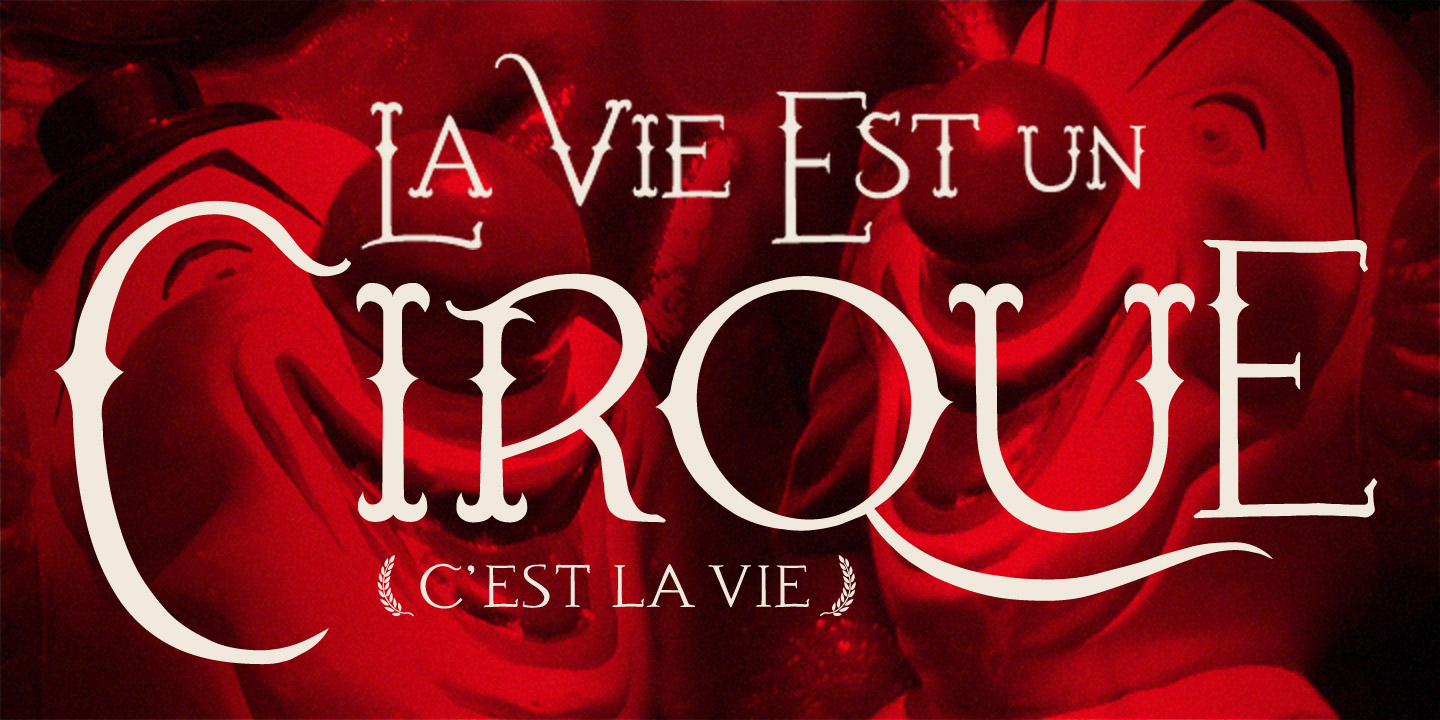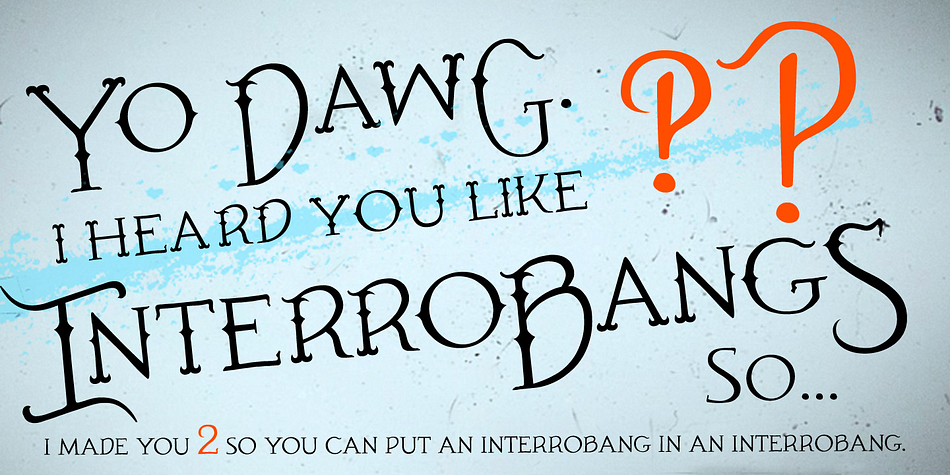
Cirque is a display and western font published by Frost Foundry.
Cirque is a lively Western/Circus/Victorian/Whatever font that buddies up with Aegean for a POWER FANTASY COMBO GOODTIME! You could buy Cirque alone for $25, but why do that when you can get it with Aegean and its relatives for $40? It will make Cirque much more powerful and useful for larger projects.